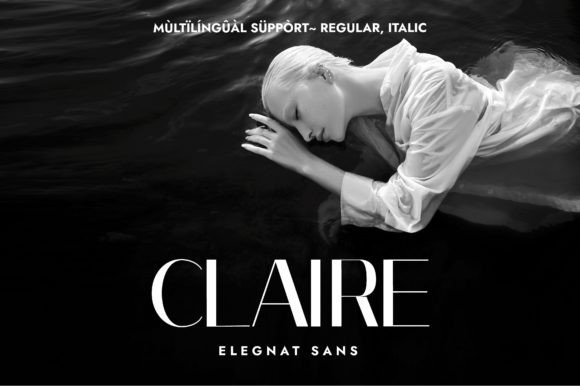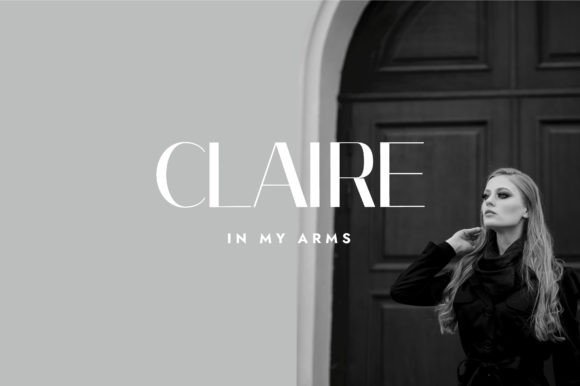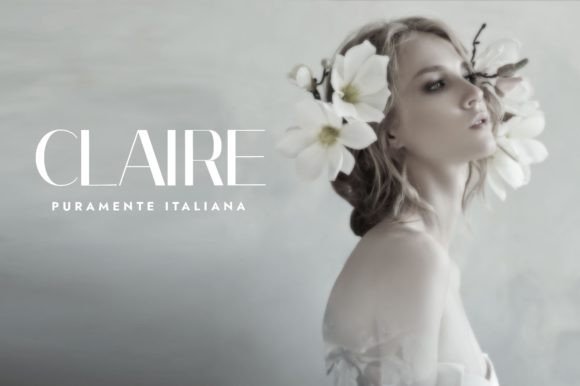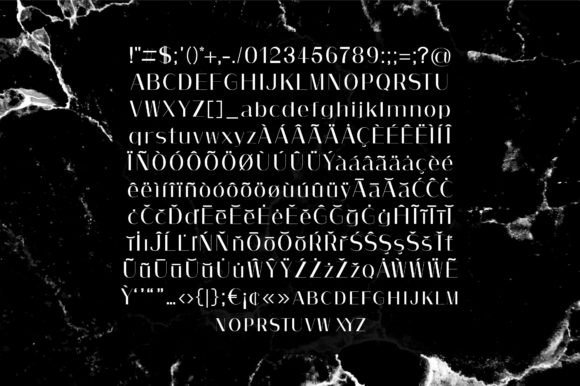
Claire Font: An Elegant Sans Serif for Modern Branding
About the Claire Font
Let us introduce you to Claire Font, where timeless design meets modern craftsmanship. Claire is a feminine and delicate sans serif font designed to satisfy your design needs. Use it in your particular projects, and you will see how it has the potential to elevate your creative process.
Claire’s delicate nature makes it ideal for projects requiring a touch of elegance and femininity, such as branding for cosmetics, fashion, or wedding invitations. It excels in headlines, short body copy, and logos, adding a sophisticated touch. However, its thin strokes make it unsuitable for body text or UI elements where readability is paramount. Avoid using it for lengthy paragraphs or small sizes.
Pairing Claire with a contrasting font enhances its strengths. A geometric sans-serif like Futura offers a modern counterpoint, while a classic serif like Garamond provides a touch of traditional warmth. For a more playful feel, consider pairing it with a script font like Allura.
Its overall personality is best described as elegant and refined, conveying a sense of sophistication and calm. This makes it a perfect choice for brands aiming for a premium or luxurious feel.